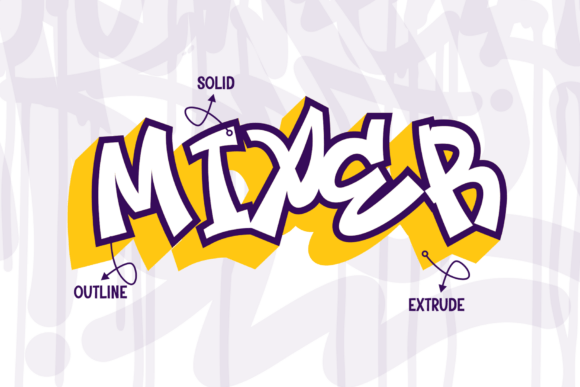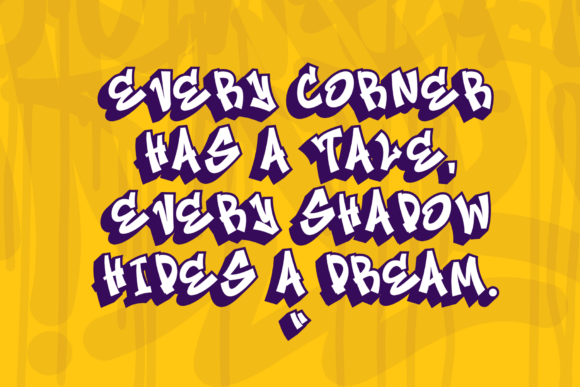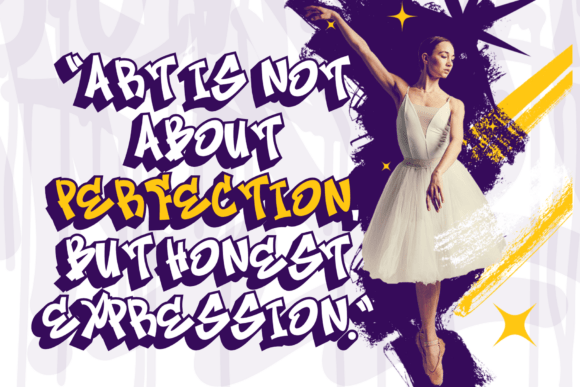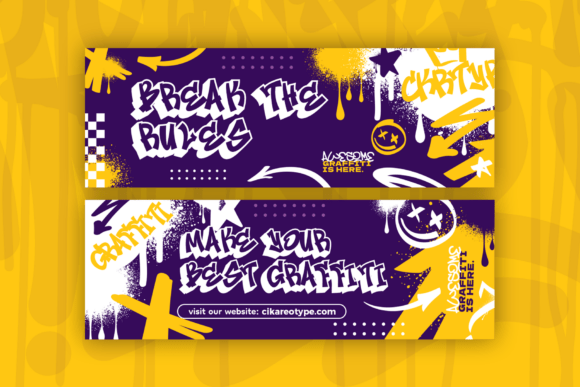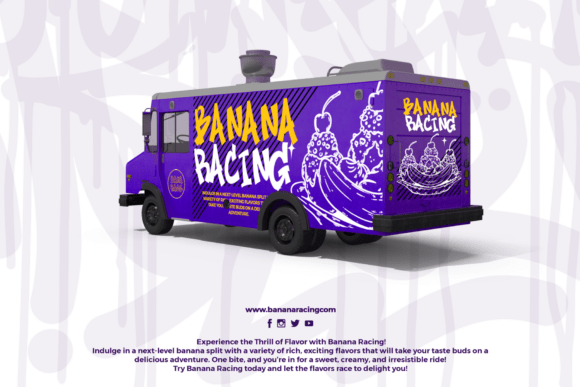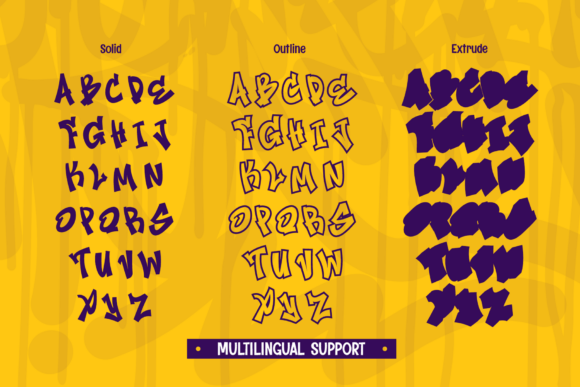
Introducing Edge Bolt: The Ultimate 3D Graffiti Font for Bold Designs
In the world of typography, few fonts manage to capture the essence of urban style and dynamism as effectively as Edge Bolt. This 3D graffiti font is a game-changer for designers and crafters looking to infuse their projects with a vibrant, electrifying edge. With its razor-sharp, streamlined characters, Edge Bolt is the perfect choice for anyone seeking to make a bold statement in their artistic creations.
The Power of Edge Bolt: A Font with Depth and Dimension
What sets Edge Bolt apart from other fonts is its unique multi-layer structure, consisting of three distinct layers: Solid, Outline, and Extrude. This innovative design allows for effortless creation of complex, dimensional text that demands attention. Whether you’re working on streetwear branding, poster creation, digital artwork, or projects with an urban influence, Edge Bolt provides a dramatic, cutting-edge finish that’s sure to leave a lasting impression.
Unleashing Creative Possibilities with Edge Bolt
Edge Bolt’s versatility is one of its most compelling features. The font’s multi-layer structure enables seamless blending and pairing of styles, allowing designers to push the boundaries of their creative expression. With Edge Bolt, you can experiment with different layer combinations to achieve a wide range of effects, from subtle and sophisticated to bold and eye-catching.
Key Features of Edge Bolt
- 3D Graffiti Style: Edge Bolt boasts a bold, dynamic 3D graffiti style that’s perfect for urban-inspired designs.
- Multi-Layer Structure: The font consists of three unique layers – Solid, Outline, and Extrude – allowing for effortless creation of complex, dimensional text.
- Razor-Sharp Characters: Edge Bolt’s streamlined characters are designed to inject a vibrant, electrifying street-style vibe into your artistic creations.
- Versatile and Customizable: The font’s multi-layer structure enables seamless blending and pairing of styles, allowing for endless creative possibilities.
Applications for Edge Bolt
Edge Bolt is an incredibly versatile font that can be used in a wide range of applications, including:
- Streetwear Branding: Create bold, eye-catching logos and typography for streetwear brands.
- Poster Creation: Design striking posters and flyers that demand attention.
- Digital Artwork: Add a touch of urban style to your digital artwork and graphics.
- Urban-Influenced Projects: Edge Bolt is perfect for any project that requires a bold, urban aesthetic.
Edge Bolt is a revolutionary 3D graffiti font that offers designers and crafters a powerful tool for creating bold, eye-catching designs. With its unique multi-layer structure, razor-sharp characters, and versatile design, Edge Bolt is the perfect choice for anyone seeking to add a touch of urban style to their artistic creations. Whether you’re working on streetwear branding, poster creation, digital artwork, or projects with an urban influence, Edge Bolt is sure to leave a lasting impression.